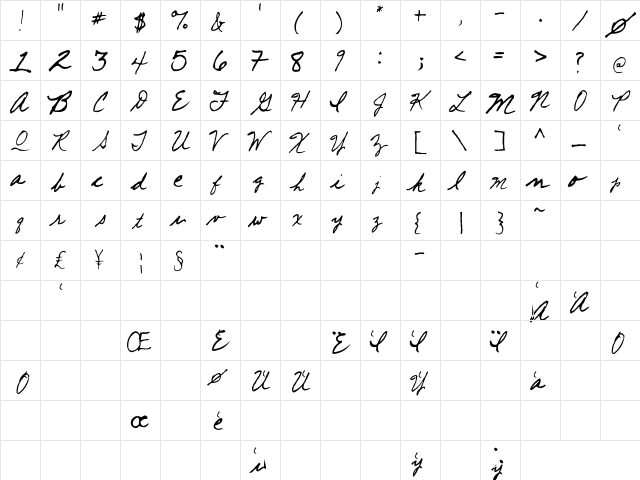
I Used to Have a Crush On You Regular
| Designer | Monotype Type Drawing Office - Robin Nicholas, Patricia Saunders 1982 |
Design Context for I Used to Have a Crush On You Typeface
I Used to Have a Crush On You is a composed and adaptable typeface that performs quietly and consistently across a wide range of design contexts.